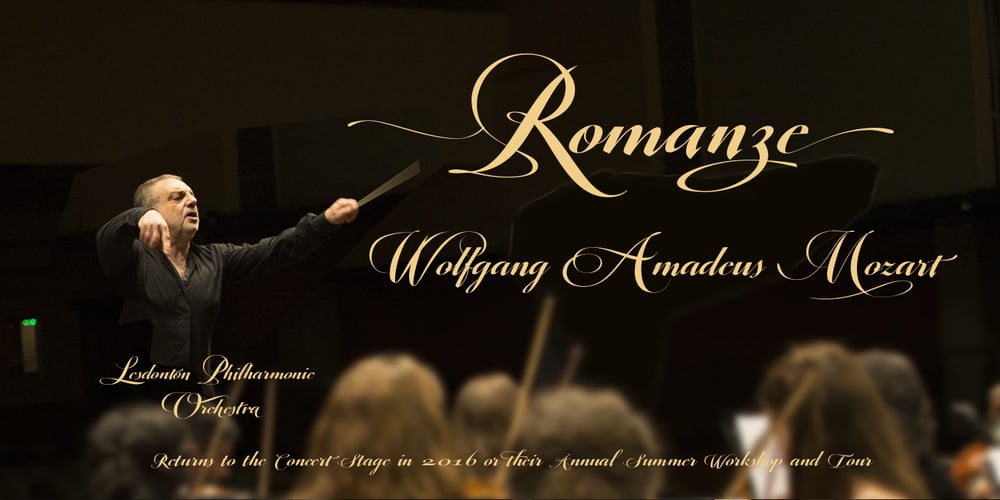
Valentia Nit
Valentia Nit font
Valentia Nit Font Family was designed by Olcar Alcaide and published by Eurotypo. Valentia Nit contains 1 styles and family package options. “Valentia Nit” is a copperplate typeface enriched with swashes and extensions in alternate characters. Its main feature is the intense contrast between thick and thin strokes that gives you clarity of reading while providing a delicate and subtle texture in the text. Another feature is the spontaneity of its stems, the agile and casual ties, which in fact, these combinations can offer the designer a variety of possibilities to structure a logo or headline in sophisticated lettering style. “Valentia Nit” was designed to combine with our previous font “Valentia” in order to obtain the necessary hierarchy of texts using changing thicknesses.